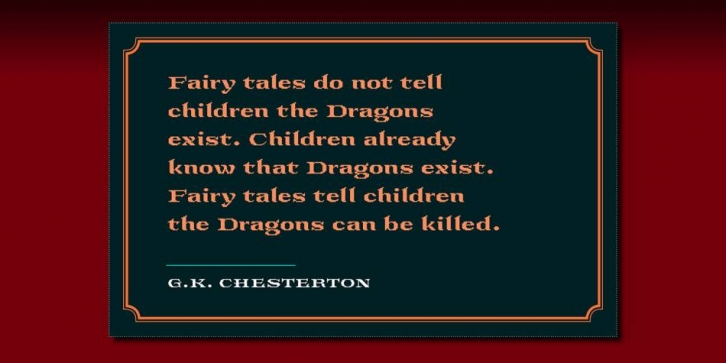
Designed by Craig Stainton, SB Aysgarth is a pixel font family published by SelfBuild Type Foundry.
SB Aysgarth is an ornate pixel font designed as a typeface for vintage style or fantasy themed games. It has alternative characters for some letters.
• Designed to be paired with SB Alaska.
• Contains 145 glyphs.
• Alternative glyphs for T, J, g and y.